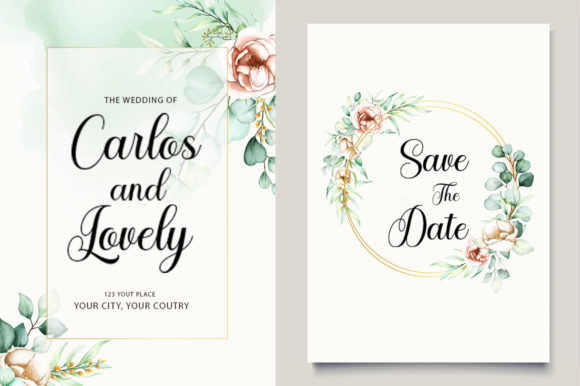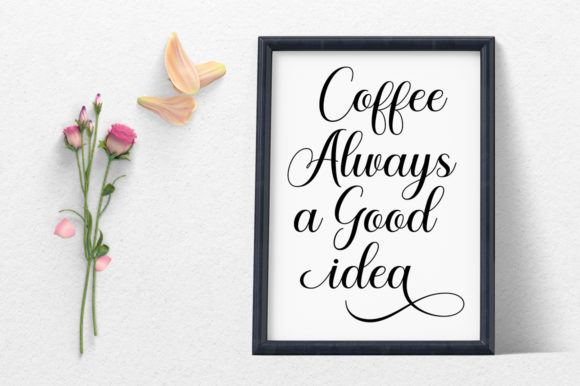
Meulati Font
db-ku.com - Script & Handwritten -- Meulati is a delicate and sweet calligraphy typeface with characters that dance along the baseline. It has a casual, yet elegant touch. It can be used for various purposes such as logos, wedding invitations, headings, t-shirts, letterhead, signage, labels, news, posters, badges and so much more.